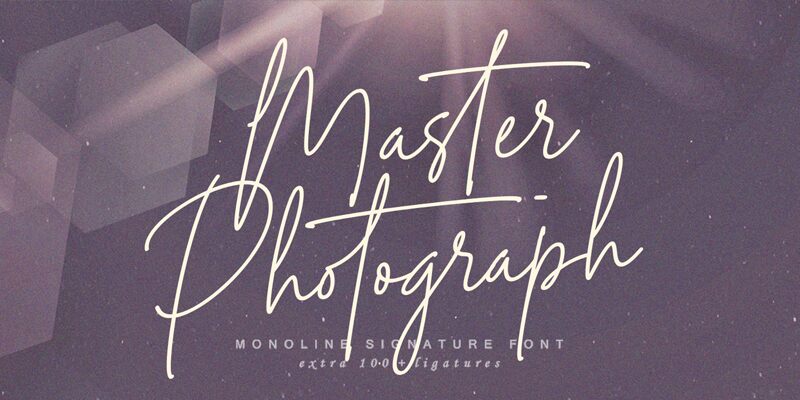
Looking for a font that adds a personal touch to your designs? Look no further than Master Photograph! Created by Subectype & Orenari, this extra-light handwritten font exudes creativity and authenticity, making it perfect for projects that require a personal touch. Whether you're creating invitations, logos, or social media graphics, Master Photograph's unique style is sure to make a lasting impression. Its delicate strokes and playful curves are perfect for adding charm to any design. So why not give your creations the unique touch they deserve with Master Photograph?